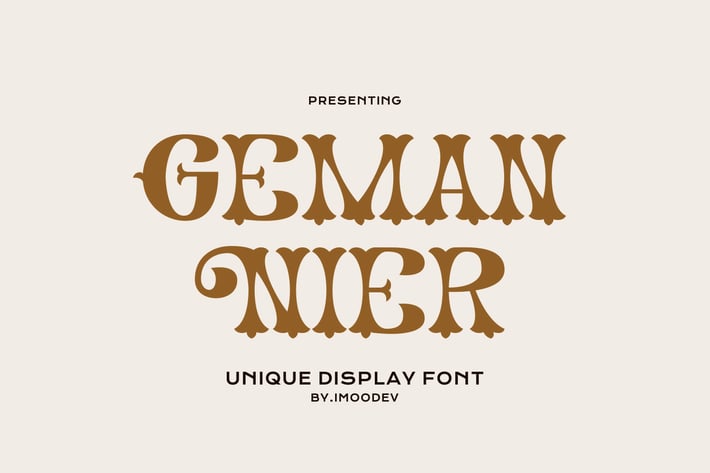
Geman Nier - Vintage Display Font
Geman Nier is a vintage display font with visual elegance, smooth curves, and beautiful ligatures clear, making your work look true and attractive.
A versatile font that works in both large and small sizes. This font is suitable for a wide variety of projects such as logos, invitations, branding, magazine, photography, card, product packaging, product mockup, mugs, quotes, posters, labels, signatures, editorials, wedding designs, art deco, and much more.
A font that is perfect for all business sectors including personal projects, studio, corporate, creative agency, industrial, company, etc.